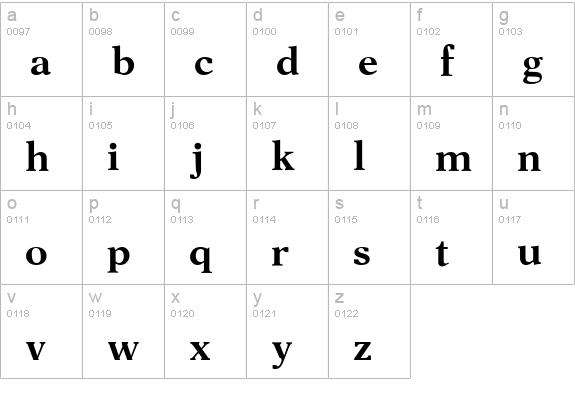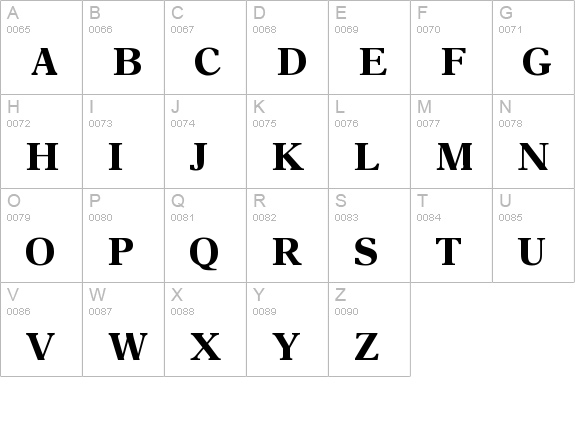
Aster MN Demi Font Details
Aster MN Demi is a sub-bold, structured variant in the Aster typeface family \xE2\x80\x94 well suited to sub-headlines and emphasised passages.
Aster MN Demi is a versatile and elegant font that exudes a sense of sophistication and modernity. With its clean lines and subtle curves, this typeface is perfect for adding a touch of refinement to any design project. The bold weight of the Demi style makes it ideal for headers, titles, and other prominent text elements, while its readability ensures that your message will always be clear and engaging. What's even better is that Aster MN Demi is available for free download at FontsMarket.com. This means that you can easily access this high-quality font without any cost, making it a valuable addition to your font library. Whether you're working on a professional project or a personal creative endeavor, Aster MN Demi is sure to elevate your designs and leave a lasting impression on your audience.